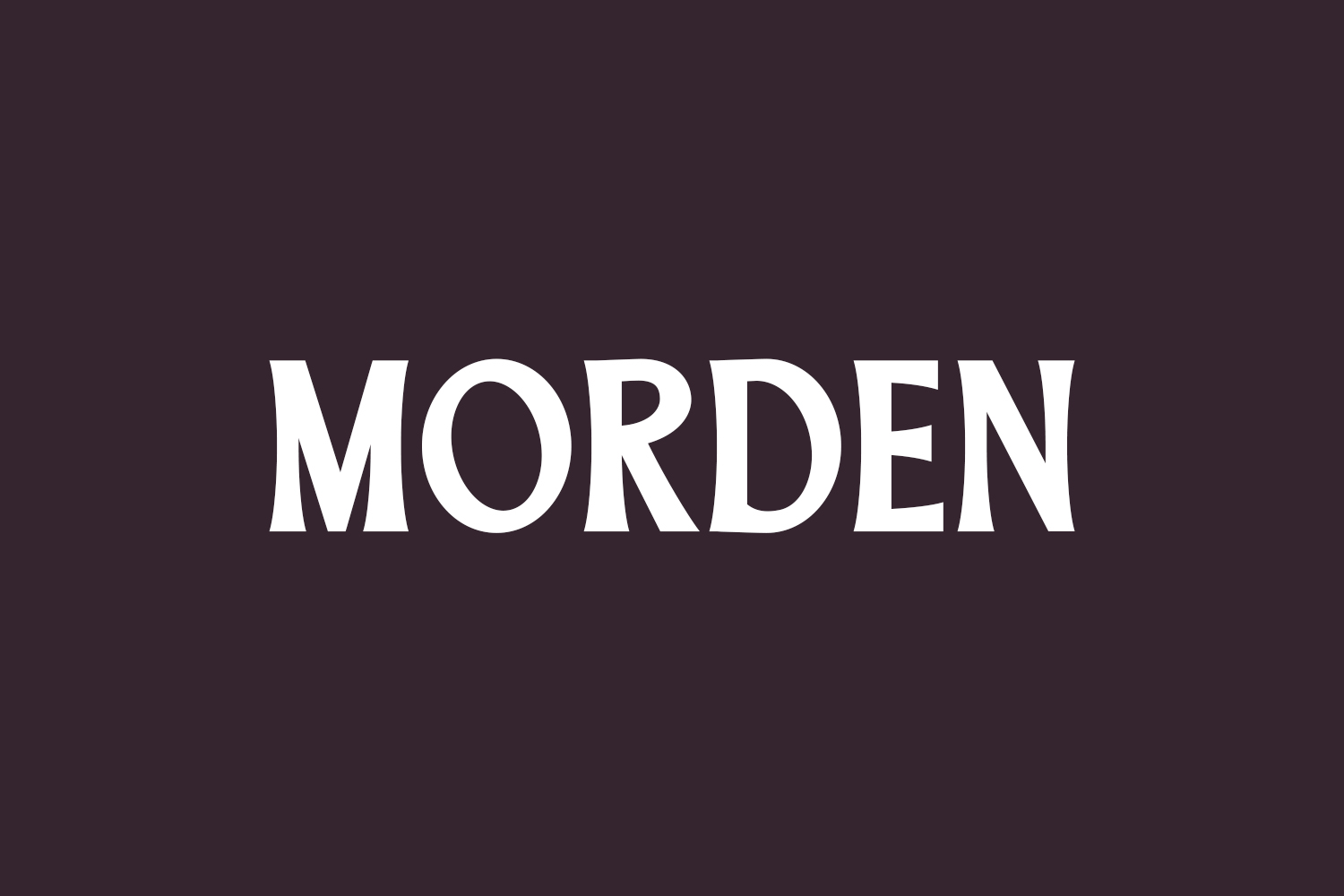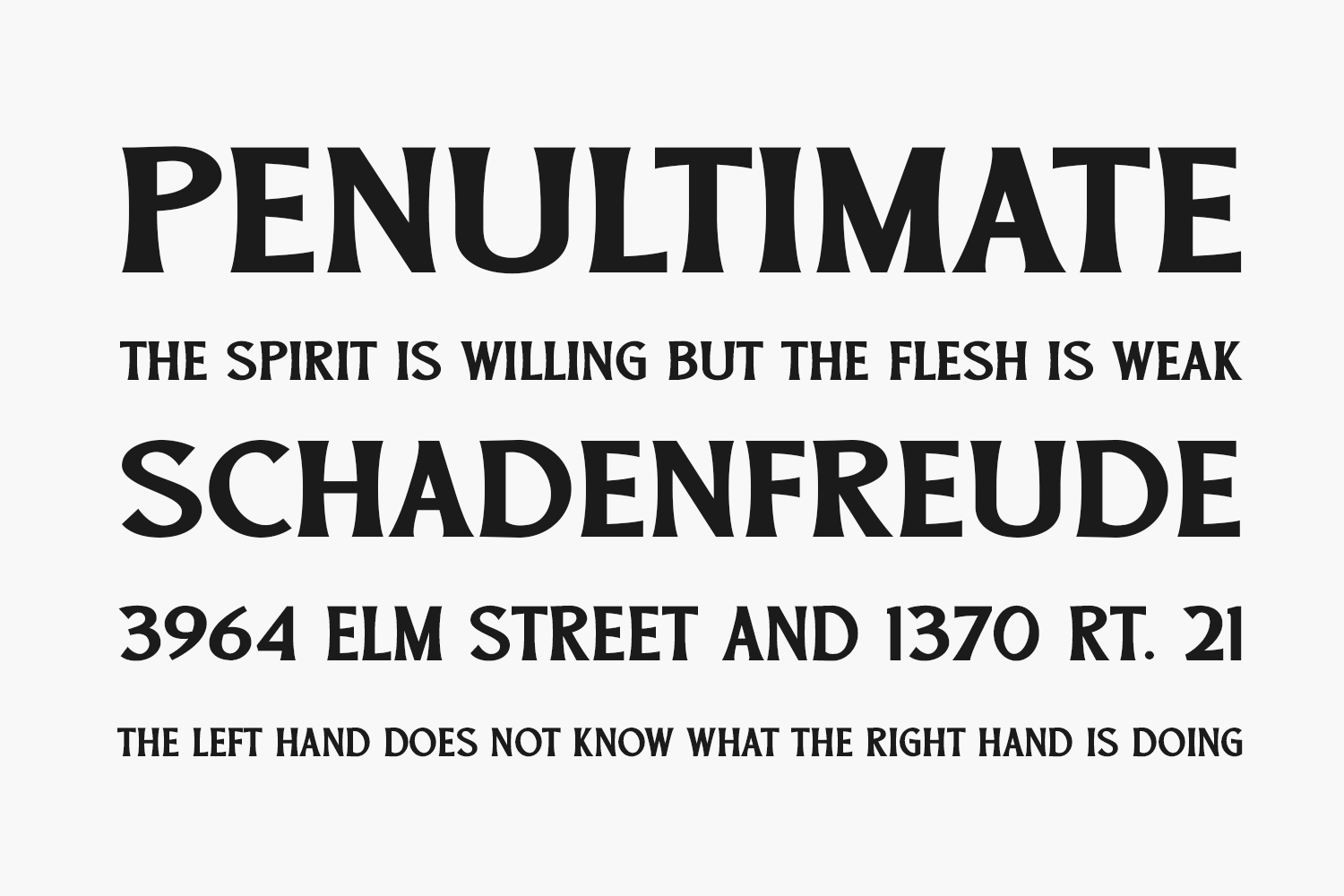
Morden Free Font is a contemporary serif display font that effortlessly blends vintage masculinity with a modern touch. This nostalgic font adds a delightful element to your design projects and is ideal for logos, designers, and various other purposes. Whether it’s editorial work, branding, or poster design, this versatile font brings out the perfect balance of style and functionality. Elevate your creative endeavors with “Retro Edge” and experience its timeless charm. Morden Free Font is free for personal use only. Please purchase the full version for commercial use.